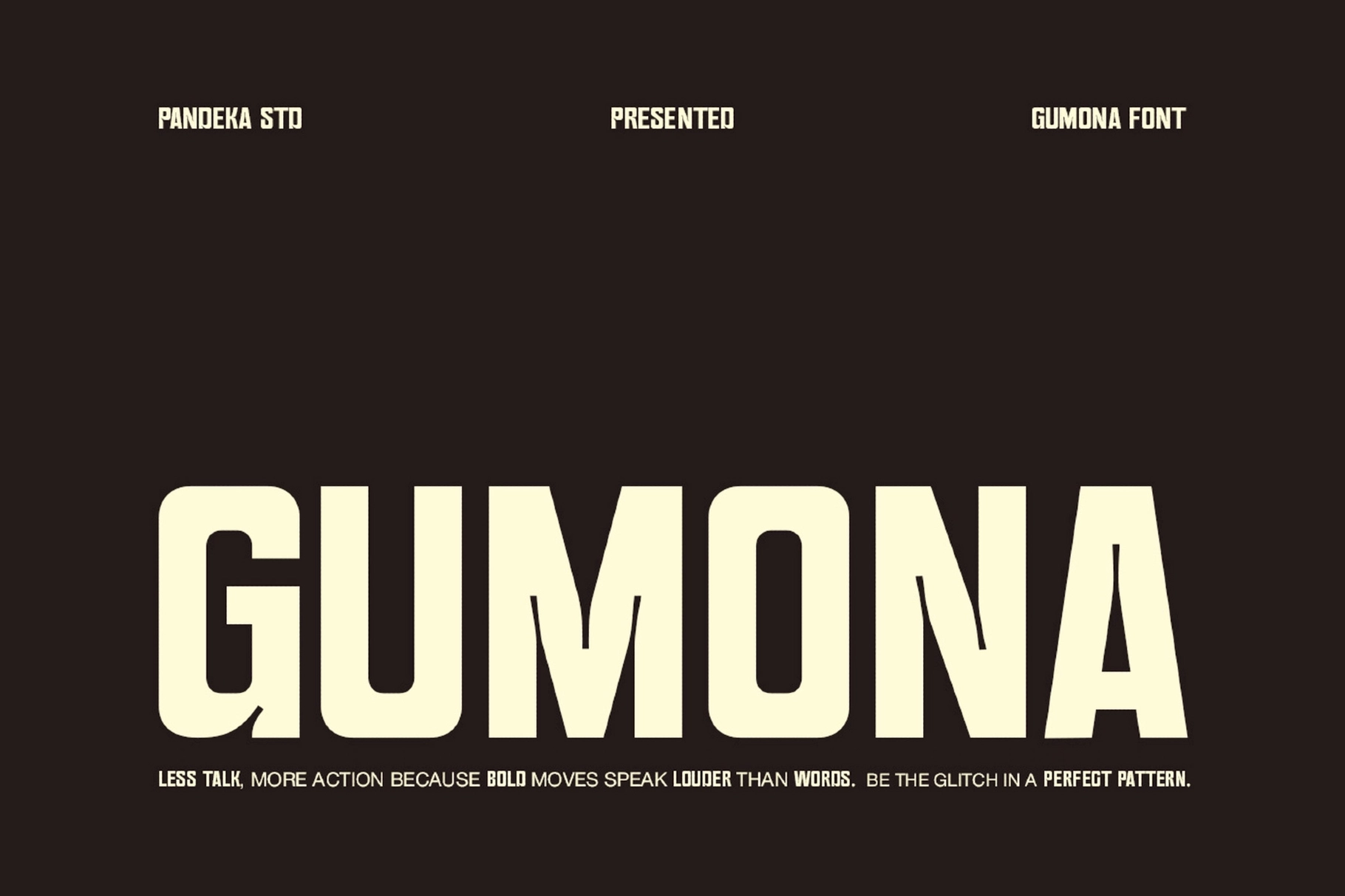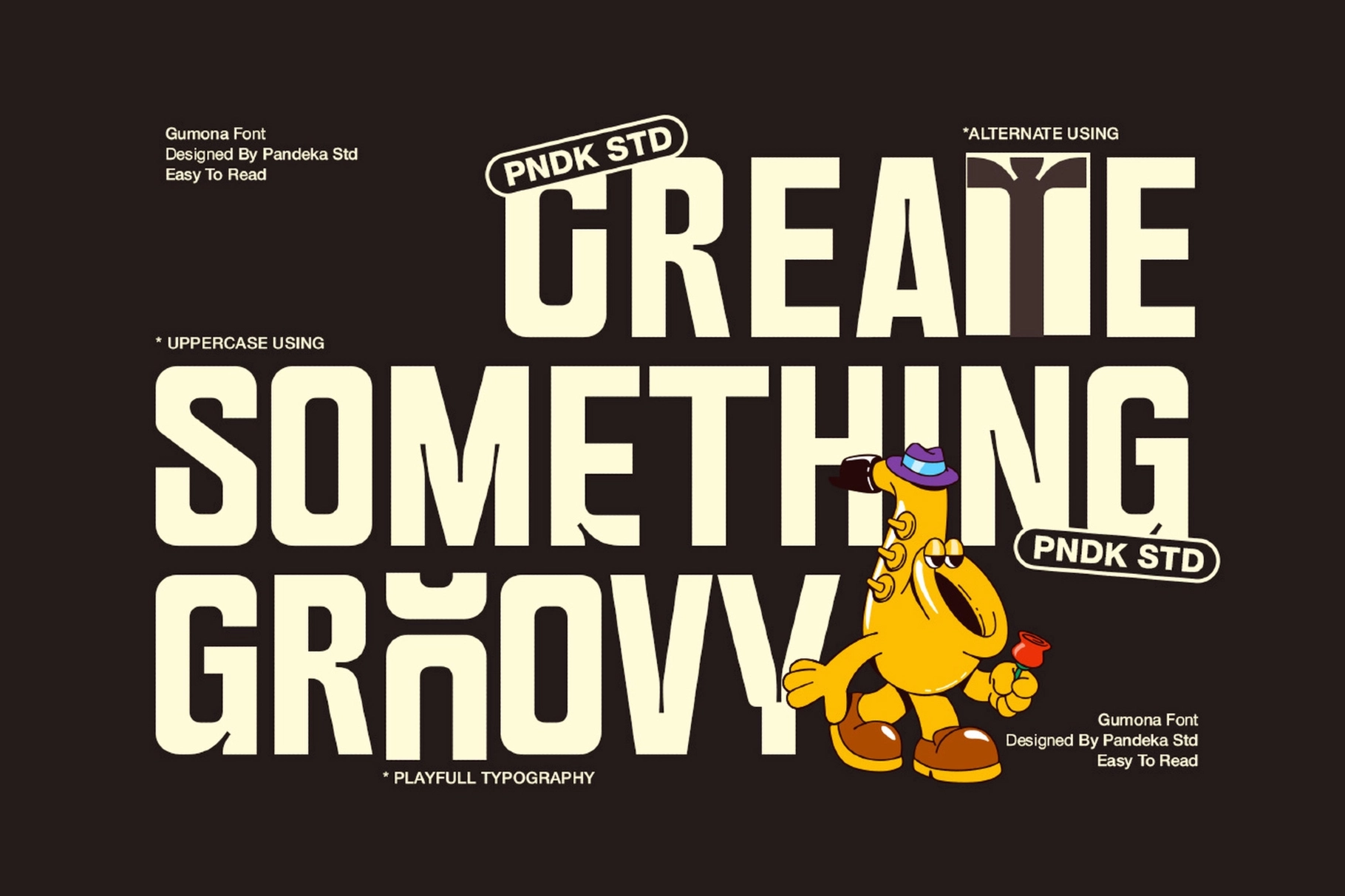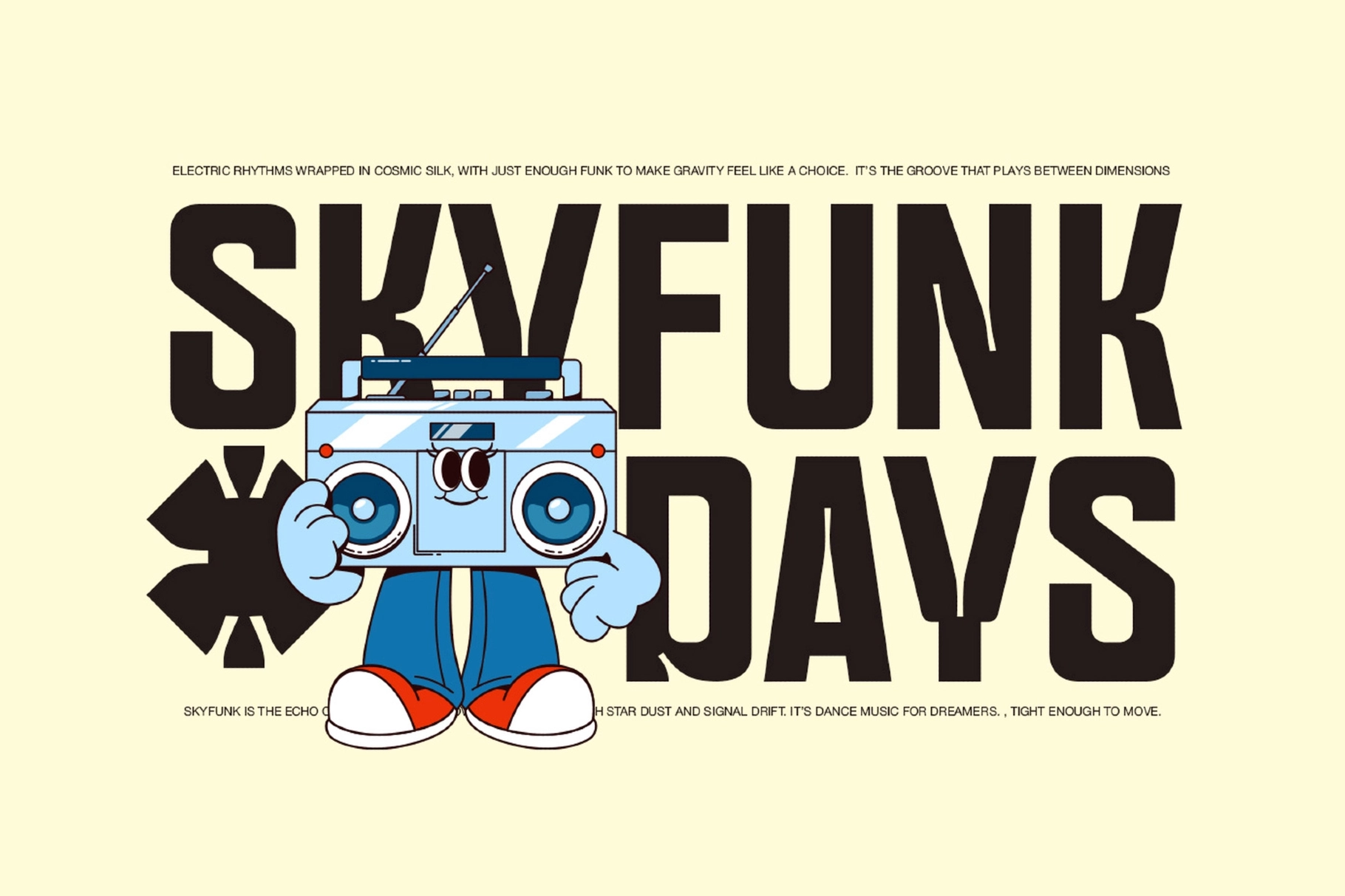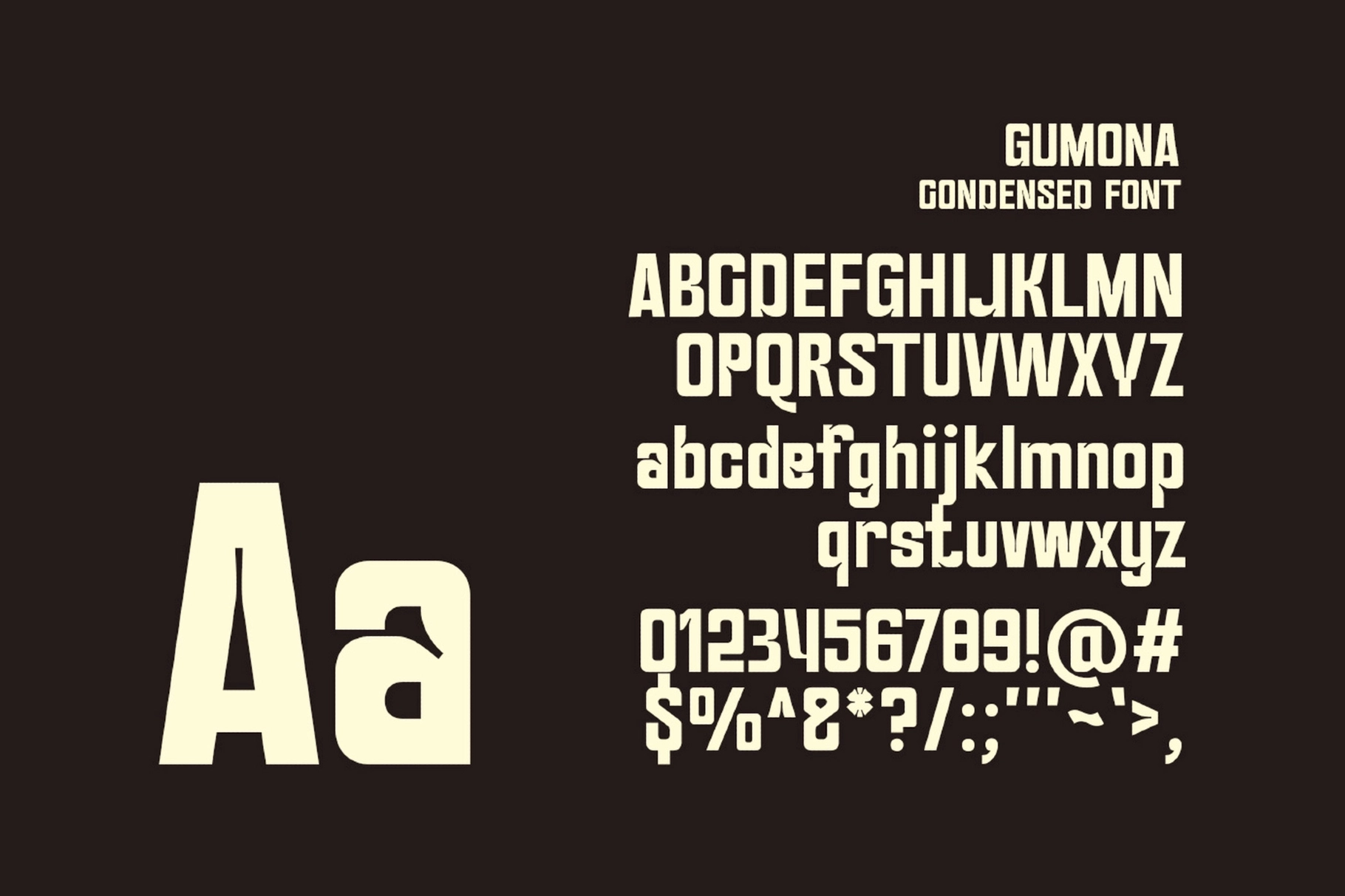
Gumona - Bold Condensed Display Font
Gumona
Gumona runs tall and tight, condensed proportions with square corners and thick strokes packed close together, landing as a bold condensed display font built to fill a headline fast. The letters keep flat, square-cut joins instead of rounded curves, giving the whole set a stamped, mechanical density even at small sizes.
A handful of stylistic alternates swap in different letter shapes for a rougher edit, and the ligature set keeps tight pairs from crowding each other. Use it for posters, sports branding, album covers, and magazine headlines.
- Uppercase & lowercase;
- Numerals, punctuation & symbols;
- Ligatures & stylistic alternates;